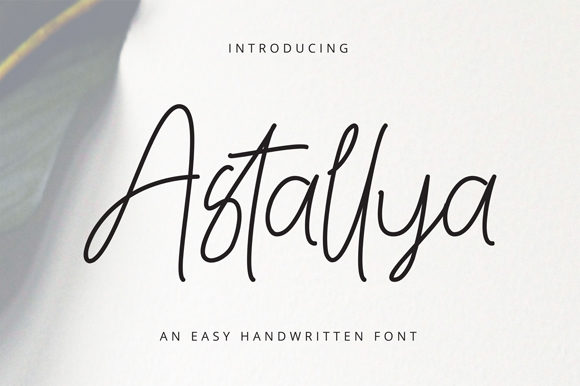
The Astallya Font: A Casual and Neat Handwritten Delight
I’ll never forget the time I was working on a branding project for a trendy coffee shop. I had the logo design all sorted out, but I was struggling to find the perfect font to complement it. That’s when I stumbled upon the Astallya font. Its effortless vibe and casual neatness immediately caught my attention, and I knew I had found the one. In this article, I’ll share my experience with Astallya, its features, and how to make the most of it in your design projects.
A Personal Review of Astallya
- ✨ The casual and neat handwritten style of Astallya makes it perfect for a wide range of design projects, from stationery to logos.
- ✅ The font has an effortless vibe that adds a unique feel to any design.
- 💡 Astallya is highly versatile and can be used for both digital and print projects.
- 🎨 The font’s neatness makes it easy to read and understand, even at smaller font sizes.
While Astallya is an excellent font, there are a few things to keep in mind:
- 🤔 The font may not be suitable for very formal or traditional designs, as it has a distinctly casual feel.
- ⚠️ Some users may find the font too similar to others in the same genre, which could make it less distinctive in certain contexts.
One of the best things about Astallya is its support for OpenType features and glyphs. These features allow you to add more personality and variety to your text, making it more engaging and visually appealing. Some common OpenType features include:
- Ligatures: These are special character combinations that replace standard character pairs, such as “fi” or “fl”. Astallya includes a range of ligatures that can add a touch of elegance to your text.
- Stylistic alternates: These are alternative character forms that can be used to add more variety to your text. Astallya includes several stylistic alternates that can be accessed through the OpenType menu.
- Glyphs: These are special characters that can be used to add more personality to your text. Astallya includes a range of glyphs, such as ornaments and swashes, that can be used to add a touch of whimsy to your design.
The Story Behind Astallya
According to the font’s designer, Astallya was inspired by the casual, handwritten notes and letters that we all receive from time to time. The designer wanted to capture the effortless vibe and neatness of these notes, and create a font that would be perfect for a wide range of design projects. With its unique blend of casualness and sophistication, Astallya has become a popular choice among designers and crafters.
Q: Is Astallya suitable for body text?
A: While Astallya is a beautiful font, it may not be the best choice for body text, especially in smaller font sizes. Its casual and handwritten style can be a bit challenging to read in large blocks of text.